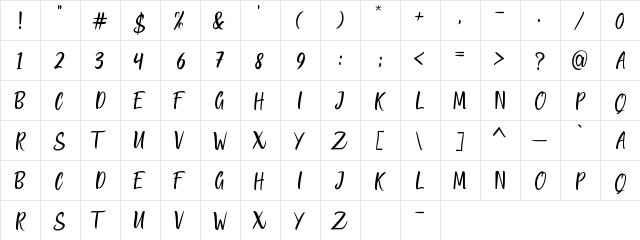
QUICK BRIDGE Regular
| Foundry | Toni Studio |
| Designer | FATONI NURMAN |
Design Context for QUICK BRIDGE Typeface
QUICK BRIDGE takes a measured approach to typography — its balanced proportions and neutral character make it a reliable workhorse for both digital and print work.